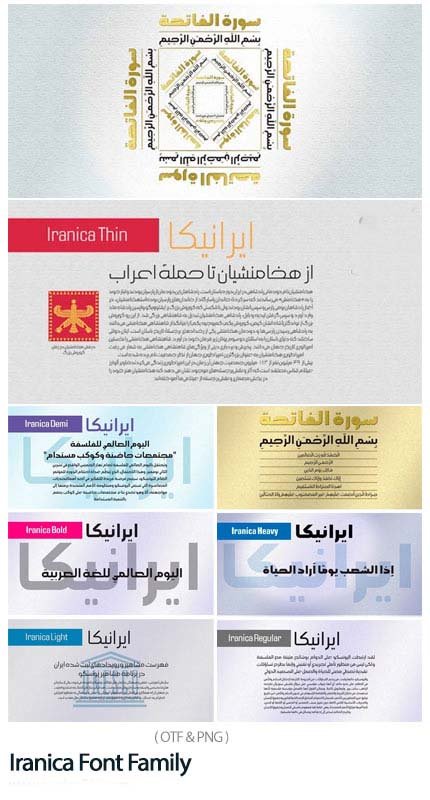
Iranica Font Family
Iranica is a thoughtfully crafted typeface that brings together three major Islamic calligraphic traditions in a design that celebrates the rich cultural heritage of Iran and the broader region. With its elegant proportions and comprehensive character support, this font allows you to create sophisticated projects that flow seamlessly across Persian, Arabic, and Urdu scripts.
Design Characteristics:
- Elegant, refined letterforms with cultural authenticity
- Balanced proportions for excellent readability
- Sophisticated design suitable for formal applications
- Timeless appeal with contemporary polish
- Distinctive Persian character
Persian (Farsi) Script:
- Complete Persian character set with elegant styling
- Full support for Persian-specific characters (گ، چ، پ، ژ)
- Correct representation of Persian numerals
- Proper character connections and positioning
- Authentic Persian calligraphic influence
Arabic Script:
- Coordinated Arabic design matching Persian style
- Complete Arabic character set
- Full support for Arabic diacritics and marks
- Harmonious weight and proportion
Urdu Script:
- Proper Urdu character set including specific letters
- Support for Urdu numerals and punctuation
- Correct representation with regional authenticity
- Seamless integration with Persian and Arabic
- Multilingual Publishing: Books and publications spanning multiple languages
- Regional Branding: Cohesive identities across Persian, Arabic, and Urdu markets
- Cultural Projects: Designs celebrating Iranian and regional heritage
- Islamic Content: Religious materials for diverse audiences
- Website Design: Trilingual sites serving diverse readers
- Print Materials: Brochures, flyers, and magazines
- Packaging: Product labels for regional distribution
- Educational Materials: Language learning resources
- Corporate Communications: Professional materials for regional companies
- Three Scripts, One Design: Consistent visual identity across Persian, Arabic, and Urdu
- Cultural Authenticity: Properly designed for each script with regional sensitivity
- Elegant Aesthetic: Refined, sophisticated letterforms
- Comprehensive Support: All characters for all three languages
- Professional Quality: High-caliber font for commercial use
Key Features of Iranica Font:
- Complete support for Persian (Farsi), Arabic, and Urdu scripts
- Elegant, culturally authentic design
- Full character sets for each script
- Perfect for trilingual and regional design projects
- Graphic designers working across Iranian and regional markets
- Publishers creating multilingual books and materials
- Web designers building trilingual websites
- Brand specialists developing regional identities
- Cultural and heritage project designers
- Islamic content creators
- Anyone needing elegant typography across Persian, Arabic, and Urdu